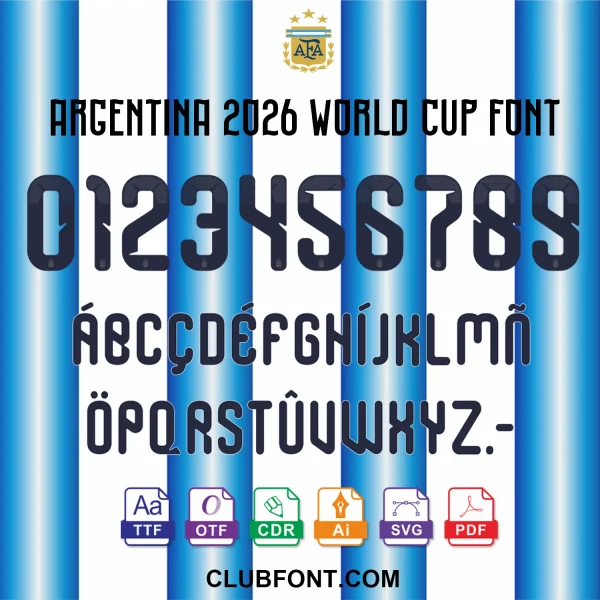
Channel the passion of La Albicelestewith the Argentina 2026 World Cup Font Download — a must-have digital kit for fans, designers, and jersey customizers. Inspired by the upcoming tournament aesthetics, this font captures the bold, clean style seen on the Argentina national team kits.
Whether you’re personalizing a Messi #10 shirt, producing fan merch, or designing matchday graphics, this Argentina 2026 World Cup font download gives you full creative control. Unlike generic fonts, every character is crafted to mirror the official jersey lettering used in international competition.
Complete Character Set – Uppercase A–Z, Numbers 0–9, and essential punctuation marks.